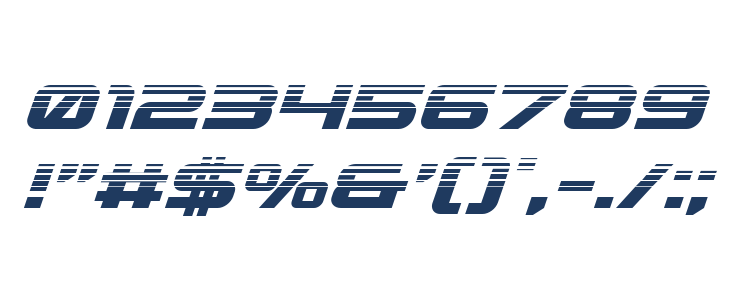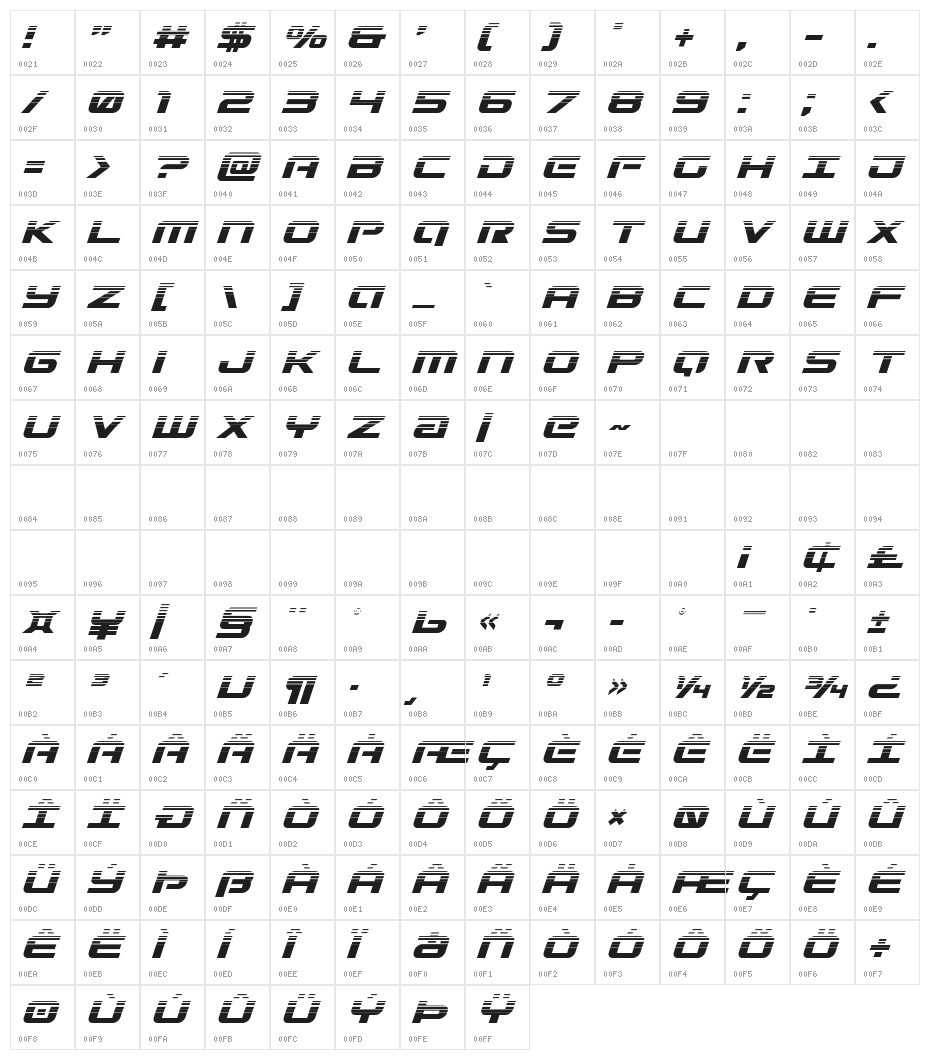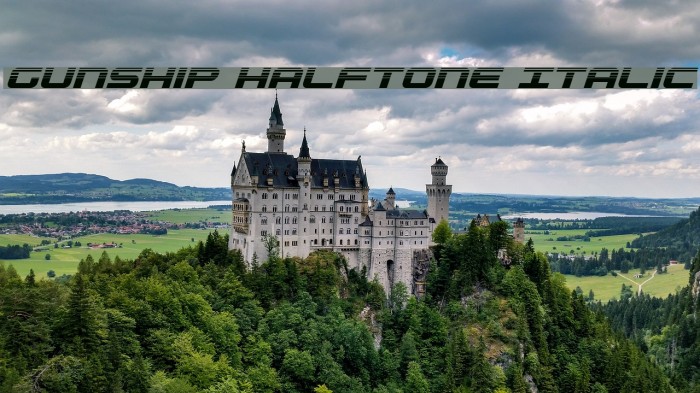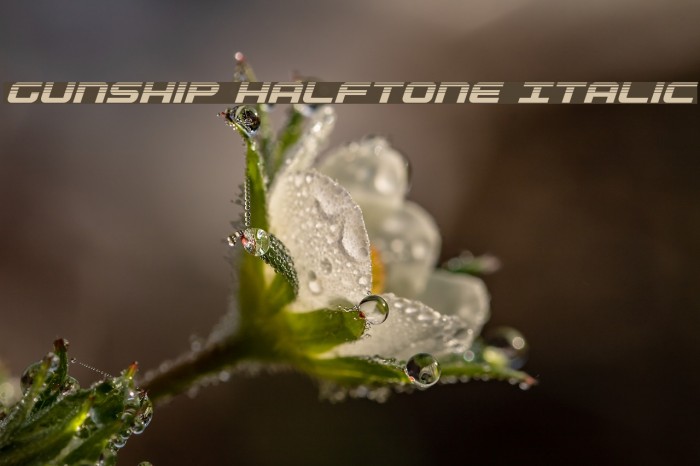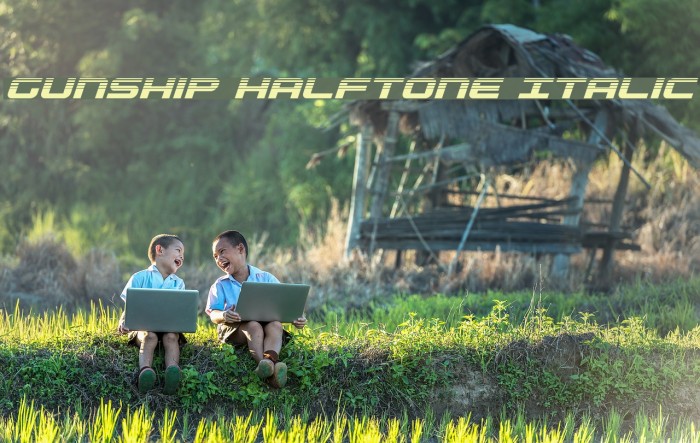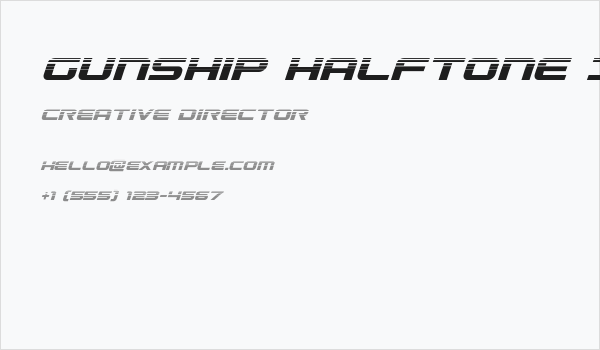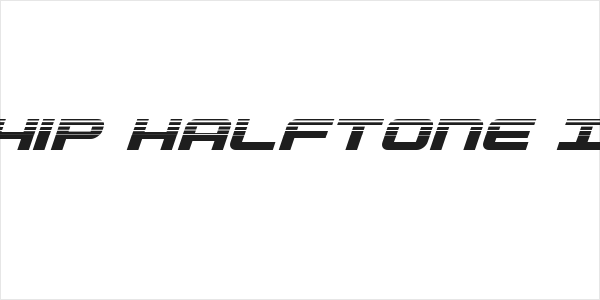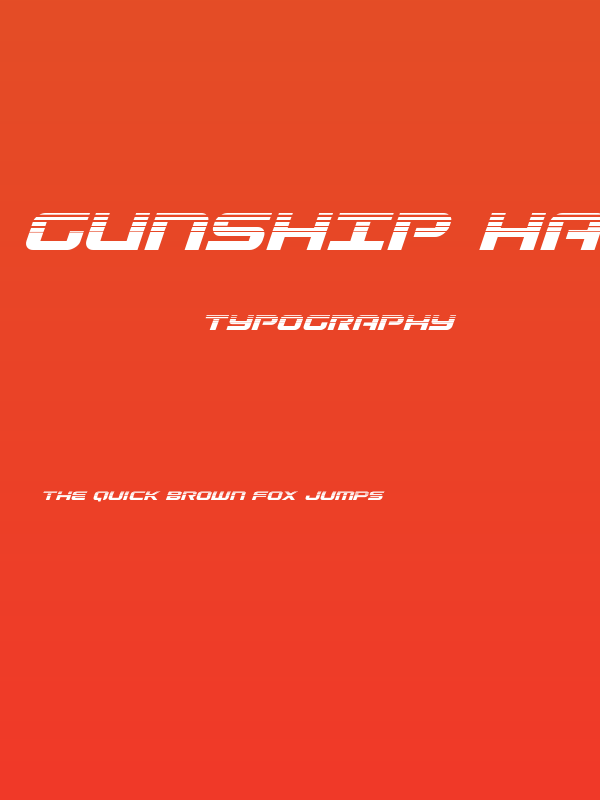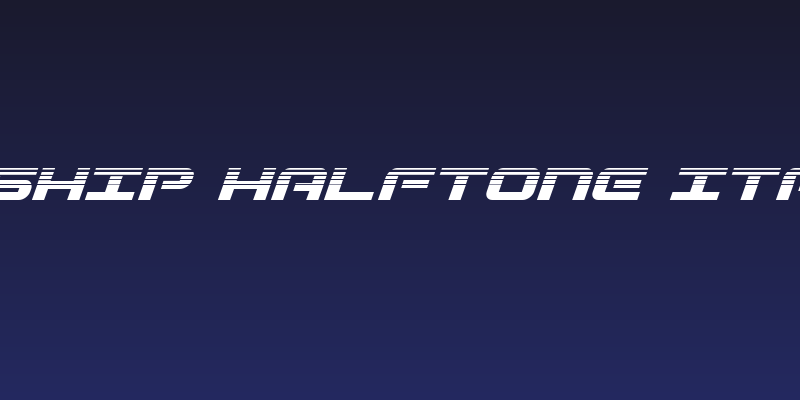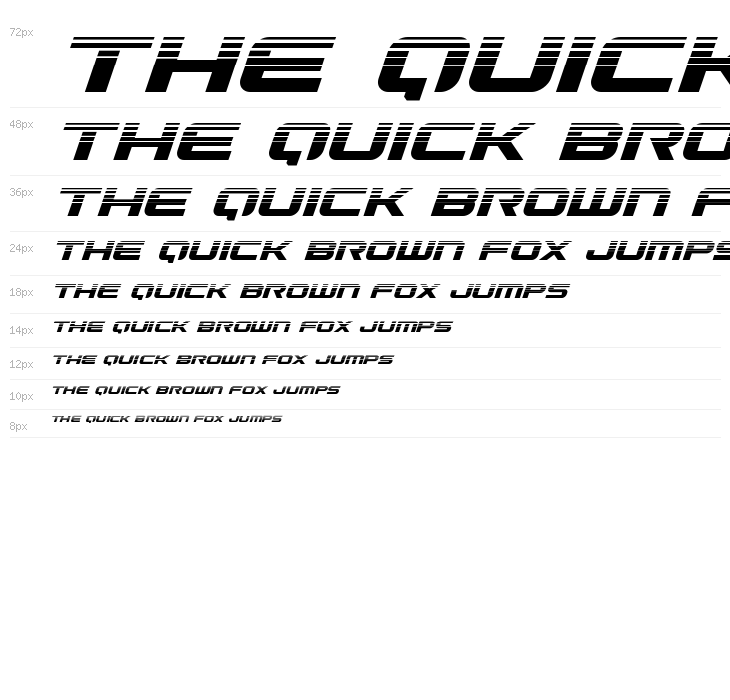
Gunship Halftone Italic Font
Gunship Halftone Italic Description
This font features a bold, futuristic design with a distinct halftone effect that gives it a dynamic and energetic appearance. The italicized style adds a sense of motion and speed, making it ideal for projects that require a modern and edgy look. The characters are wide and have a unique pattern of horizontal lines that create a sense of depth and dimension. The overall aesthetic is both technical and stylish, suitable for various digital and print applications.
| Proposed Projects | Ideal for video game titles, tech branding, sci-fi posters, and modern advertising campaigns. |